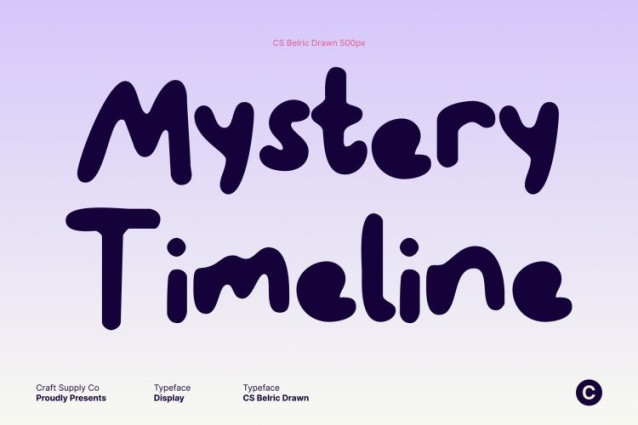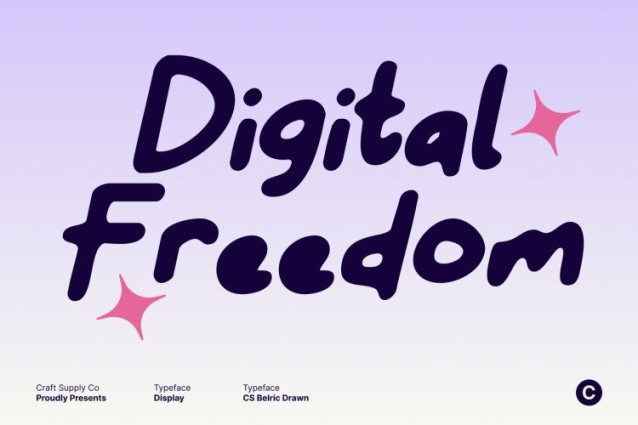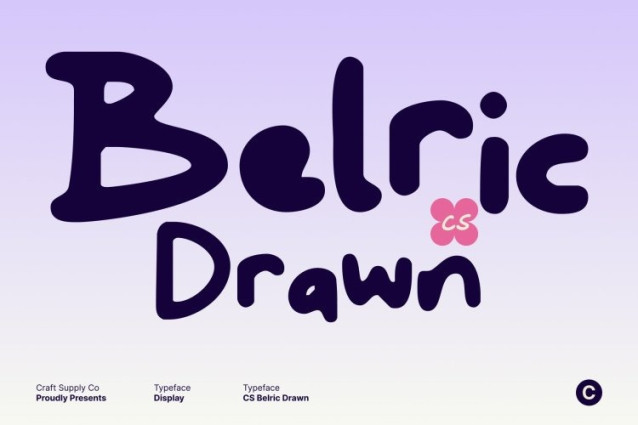
CS Belric Drawn Font
CS Belric Drawn Font This is a cute handwritten font that radiates joy and friendliness in every stroke. Its rounded shapes and soft, flowing lines create a playful and uplifting look that instantly feels warm and approachable. Designed to feel lively and full of character, this font is perfect for creative projects that aim to spread happiness and positivity.
Rounded Shapes for a Friendly Impression
The gentle, rounded letterforms give this font a comforting and charming presence. Each curve feels expressive and inviting, helping your designs connect emotionally with the audience. The soft structure enhances readability while maintaining a cute and playful personality.
Handwritten Feel for a Personal Touch
With its naturally drawn texture, this font carries the authenticity of real handwriting. The casual yet expressive strokes add warmth and individuality, making every word feel personal and sincere. This hand-drawn quality brings a human touch that enriches modern designs.
Perfect for Fun and Creative Projects
Ideal for kids’ projects, greeting cards, party invitations, playful branding, and cheerful digital content, this font delivers charm and personality in every use. Its friendly rhythm and cute style make it a versatile choice for designs that want to feel joyful, creative, and memorable.